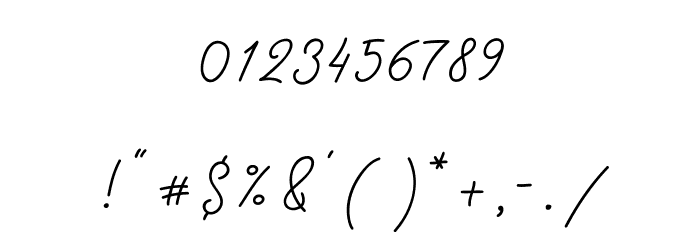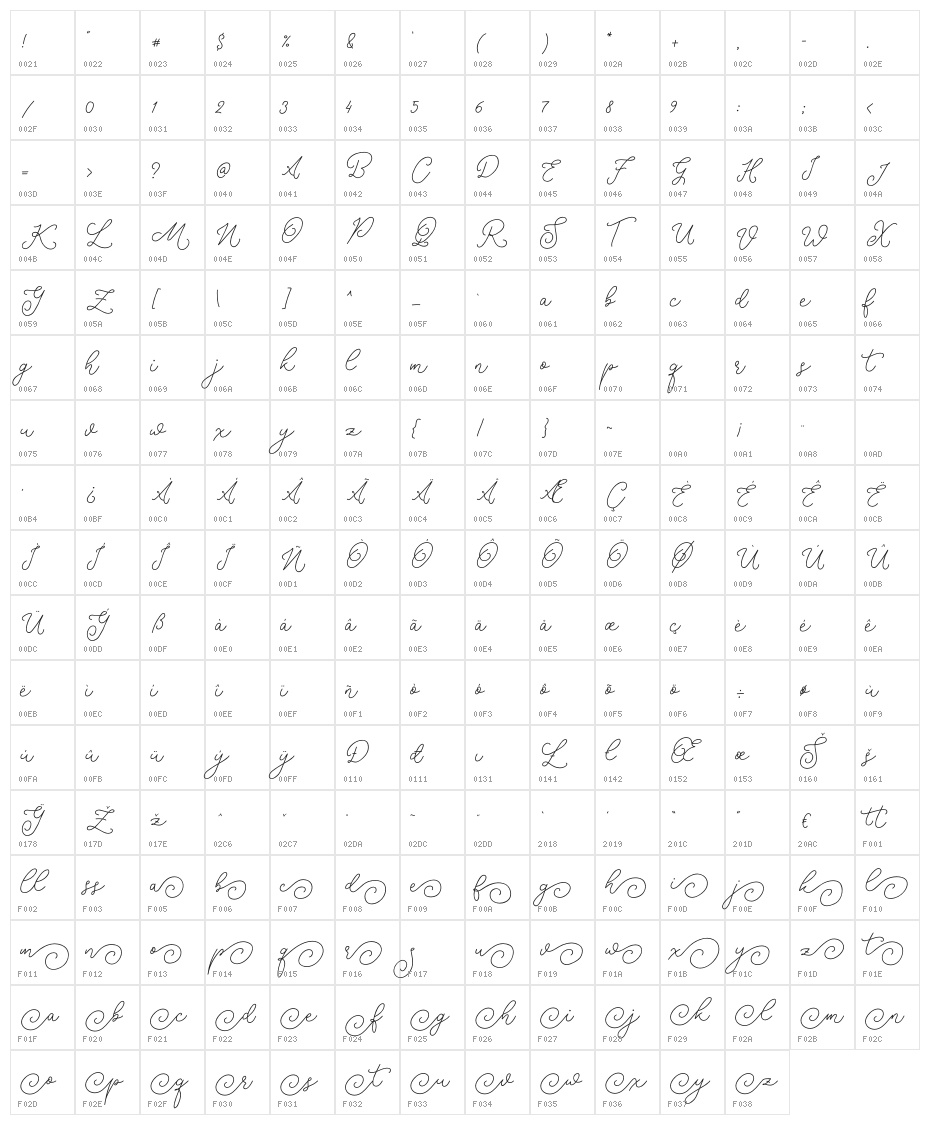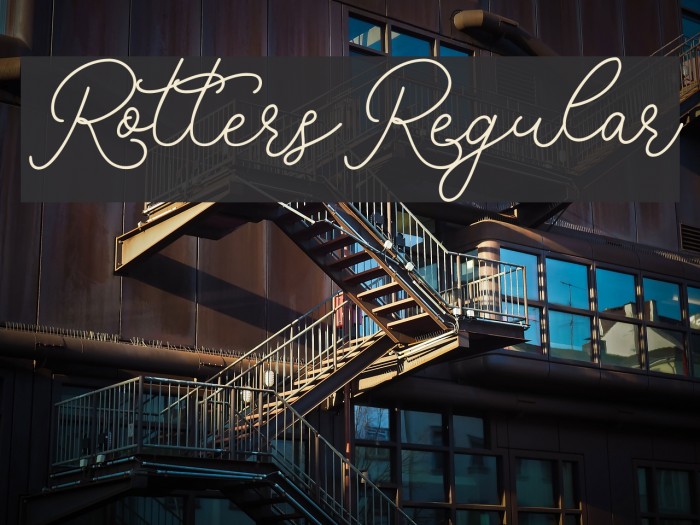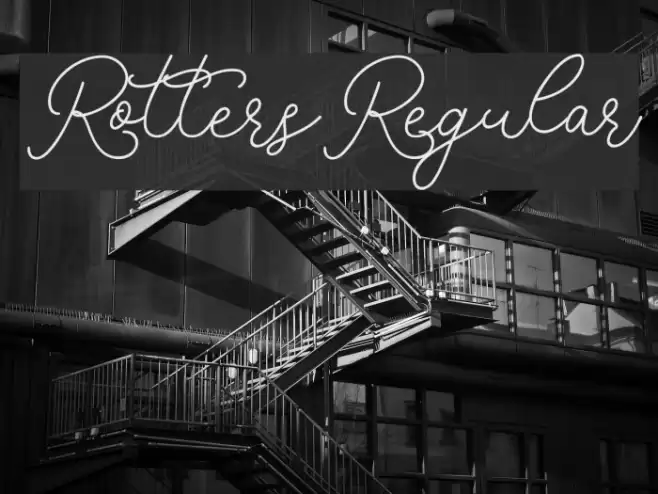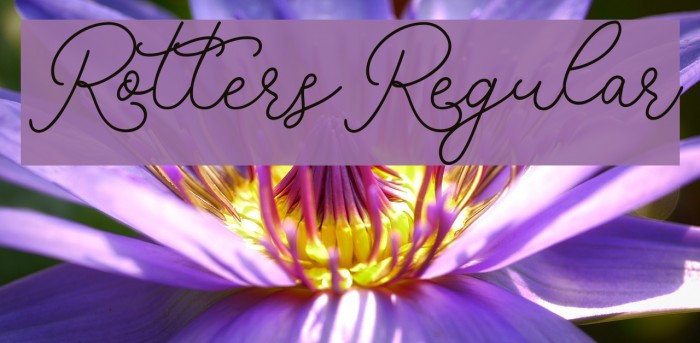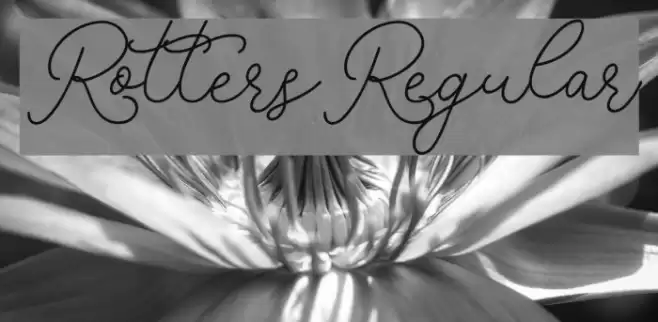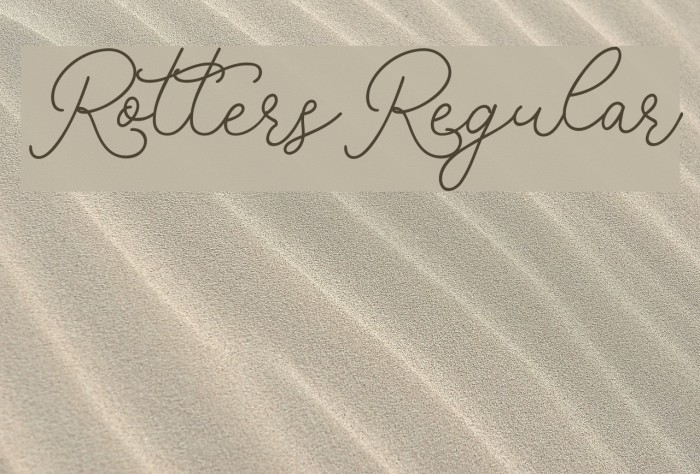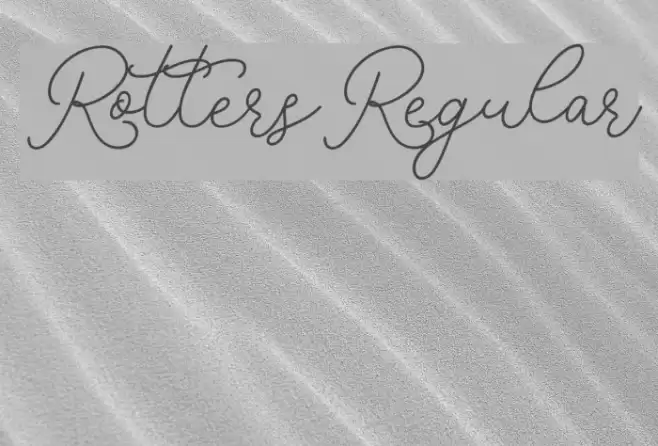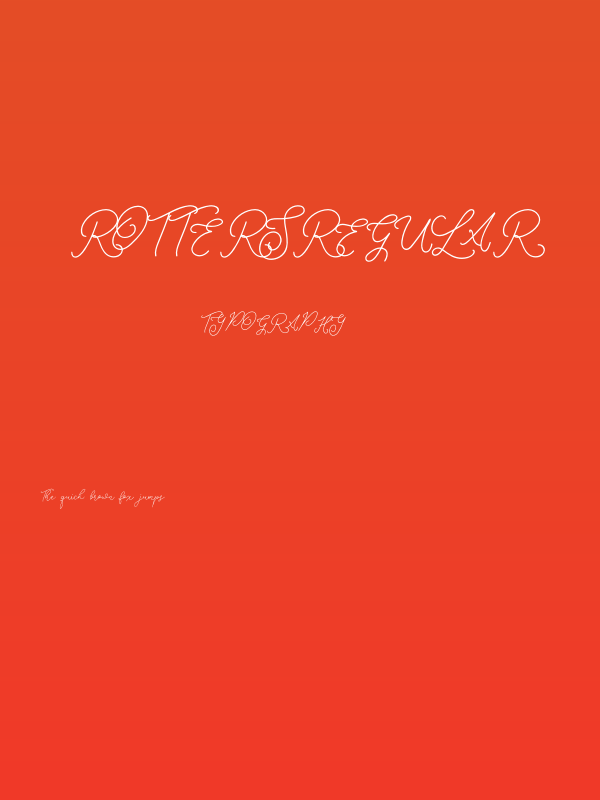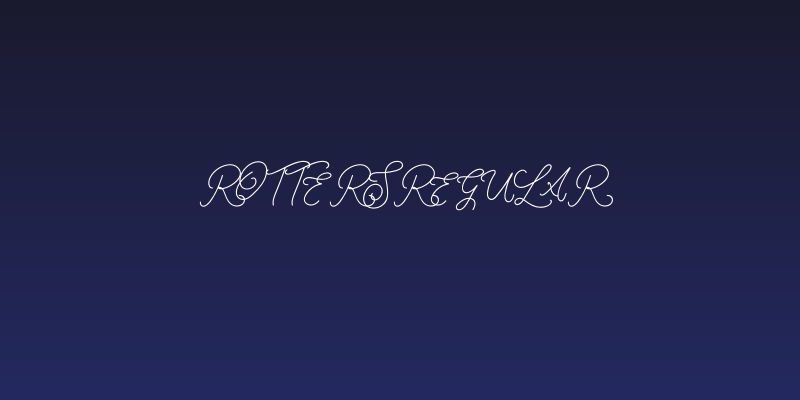
RottersRegular Font
RottersRegular Description
This font features an elegant and flowing script style, characterized by its smooth, continuous strokes and graceful curves. The uppercase letters exhibit a sophisticated flair with decorative loops and swashes, while the lowercase letters maintain a consistent, fluid motion that enhances readability. The numerals and special characters are designed to complement the overall aesthetic, ensuring a cohesive look across different uses. This font's delicate lines and artistic presentation make it ideal for projects that require a touch of elegance and personal expression.
| Proposed Projects | Ideal for wedding invitations, greeting cards, branding, and any project requiring a personal, elegant touch. |